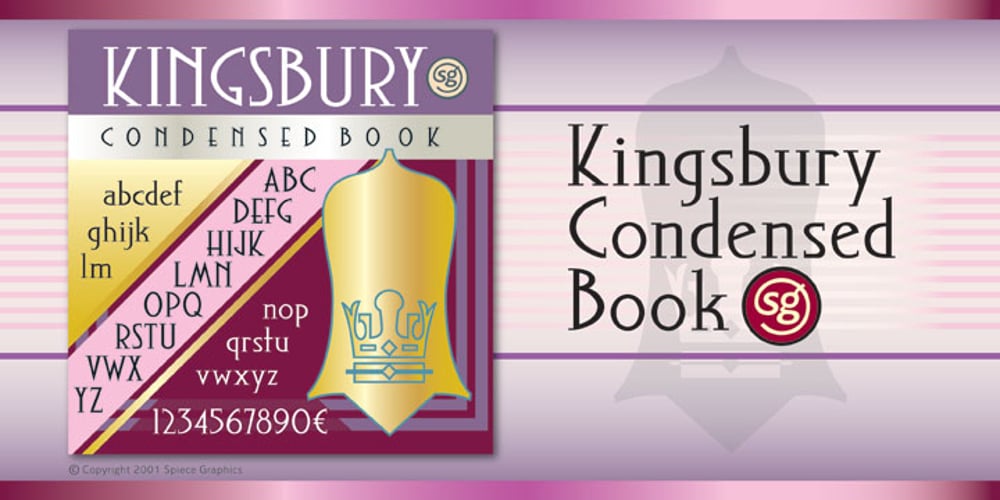
Kingsbury Condensed SG
Kingsbury Condensed SG font
Kingsbury Condensed SG Font Family was designed by Jim Spiece and published by Spiece Graphics. Kingsbury Condensed SG contains 1 styles and family package options. This delicate condensed typeface evokes a distant 1930s style with its pointed and sloping capital letters. The splayed capital M gives the design a very a definite retro flavor. But deco quickly becomes modern day with the use of slab serifs. The thick body of Kingsbury Condensed is neatly anchored to long thin serifs giving the face an unusual and at the same time contemporary appearance. Great for book covers and large capital letter assignments where a modern revivalist look is appropriate. Kingsbury Condensed Book is also available in the OpenType Std format. Some new characters have been added to this OpenType version. Advanced features currently work in Adobe Creative Suite InDesign, Creative Suite Illustrator, and Quark XPress 7. Check for OpenType advanced feature support in other applications as it gradually becomes available with upgrades.